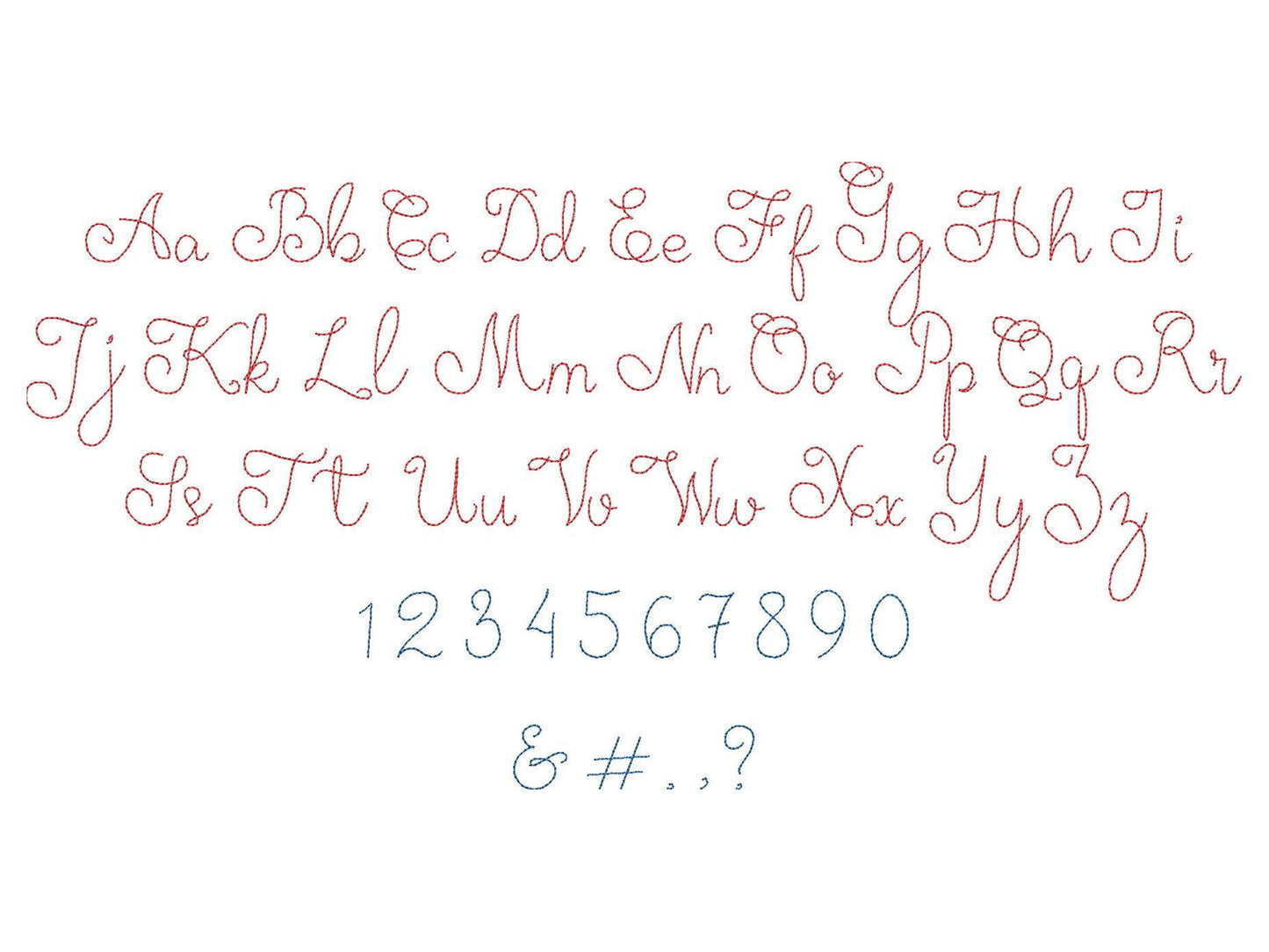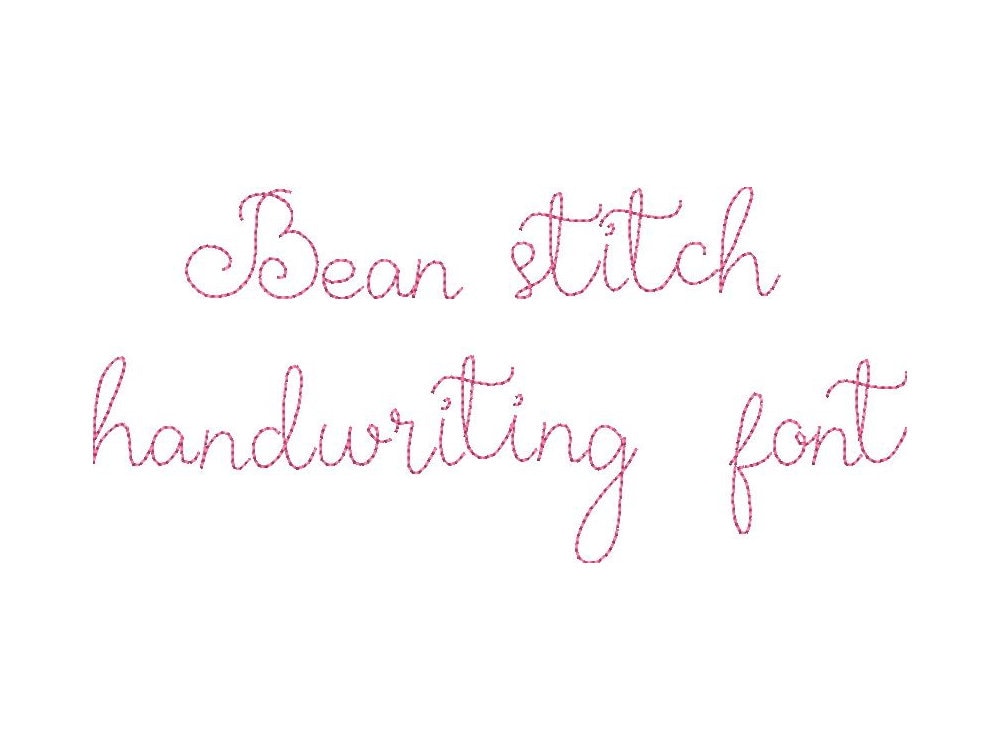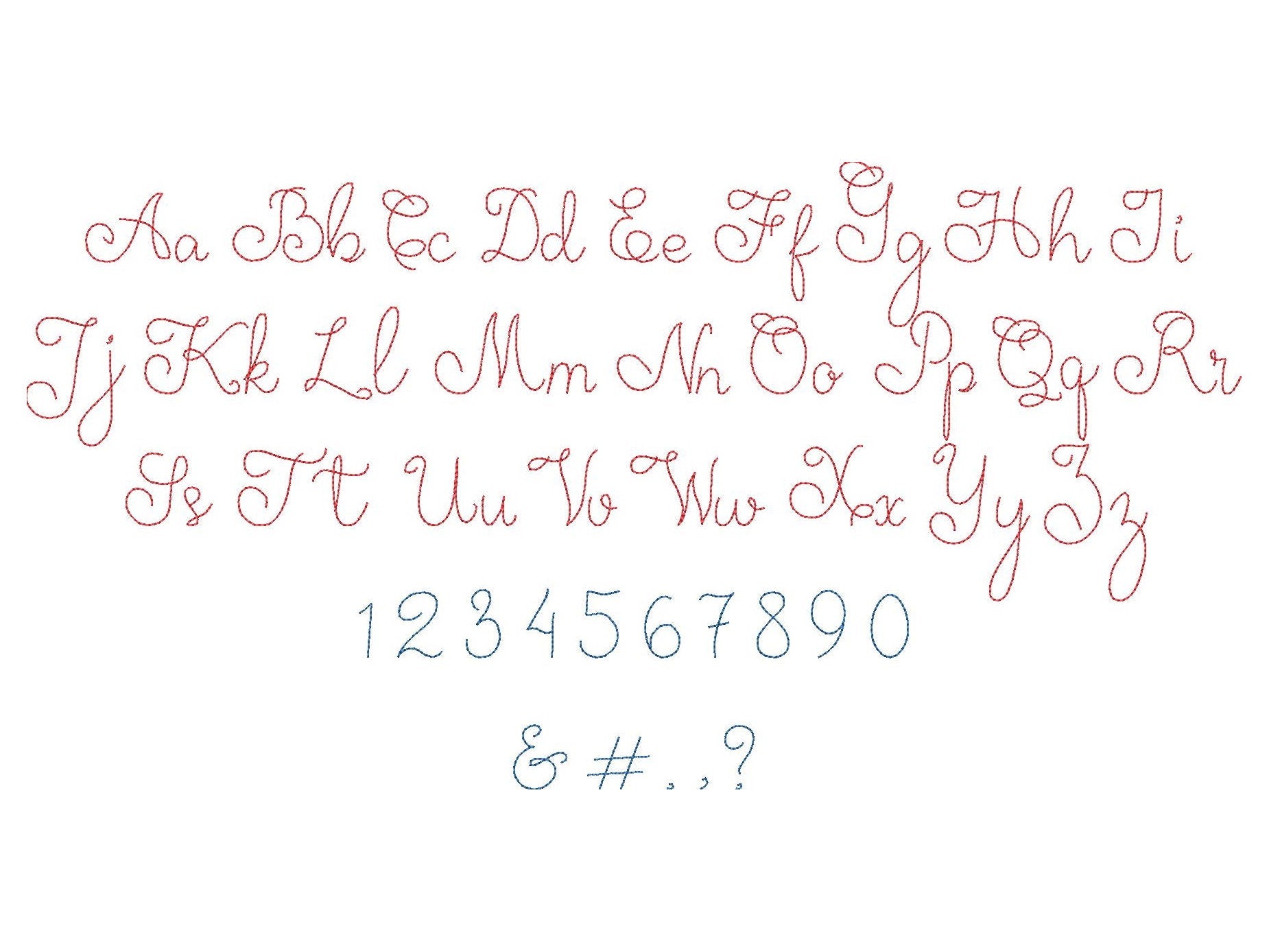
Or click to open the linkA tiny handwritten font in bean stitch, made for small names, labels, sleeves, collars and little sayings.
Uppercase and lowercase letters, numbers 0 to 9 and punctuation, in seven mini sizes: 0.6, 0.7, 0.9, 1.1, 1.3, 1.6 and 1.9 inches. A clean bean stitch line keeps even the smallest letters crisp.